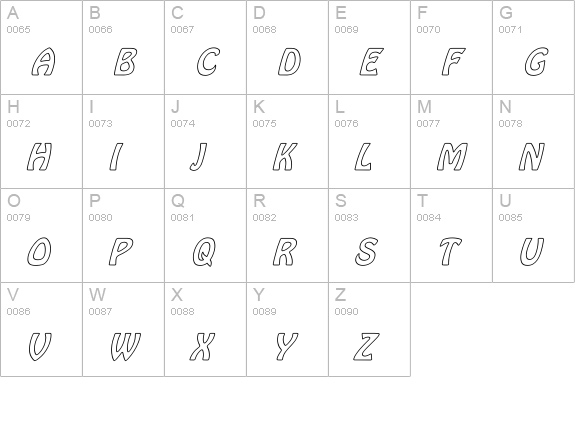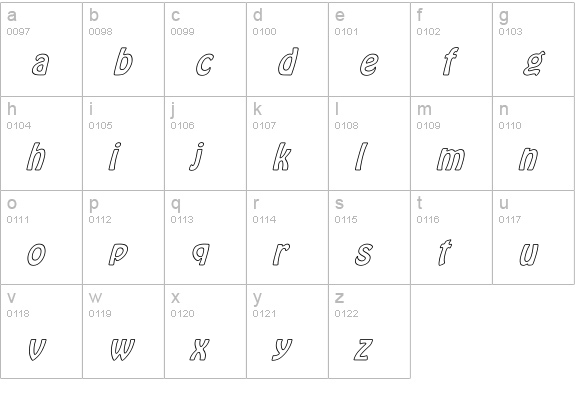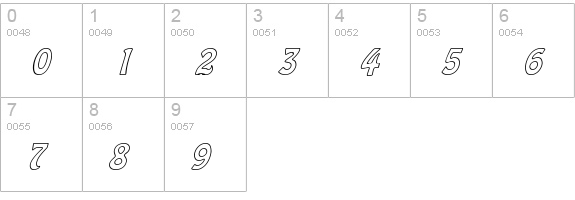
Vagabond Hollow Italic is a distinctive, italic variant in the Vagabond typeface family \xE2\x80\x94 well suited to design and typography projects.
Vagabond Hollow Italic font is a stunning and versatile typeface that exudes a sense of wanderlust and adventure. Its sleek and elegant curves are imbued with a hint of playfulness, making it perfect for a wide range of creative projects. Whether you're designing a travel brochure, a magazine spread, or a captivating logo, this font will effortlessly elevate your design to new heights. The italicized form of Vagabond Hollow adds a touch of dynamism and sophistication to any text, making it a great choice for emphasizing important words or phrases. Its thin strokes and subtly slanted letters create a sense of movement and intrigue, capturing the essence of an explorer setting out on a new journey. What sets Vagabond Hollow Italic font apart is that it is not only visually stunning, but it is also free to download at FontsMarket.com. This means that you can easily access this exceptional font without any cost, allowing you to enhance your creative projects without breaking the bank. Whether you're a professional designer or a passionate hobbyist, this font is the perfect addition to your font library. So, if you're looking for a captivating and versatile italic font that adds a touch of adventure and elegance to your designs, look no further than Vagabond Hollow Italic font. Download it freely at FontsMarket.com and let your creativity soar.